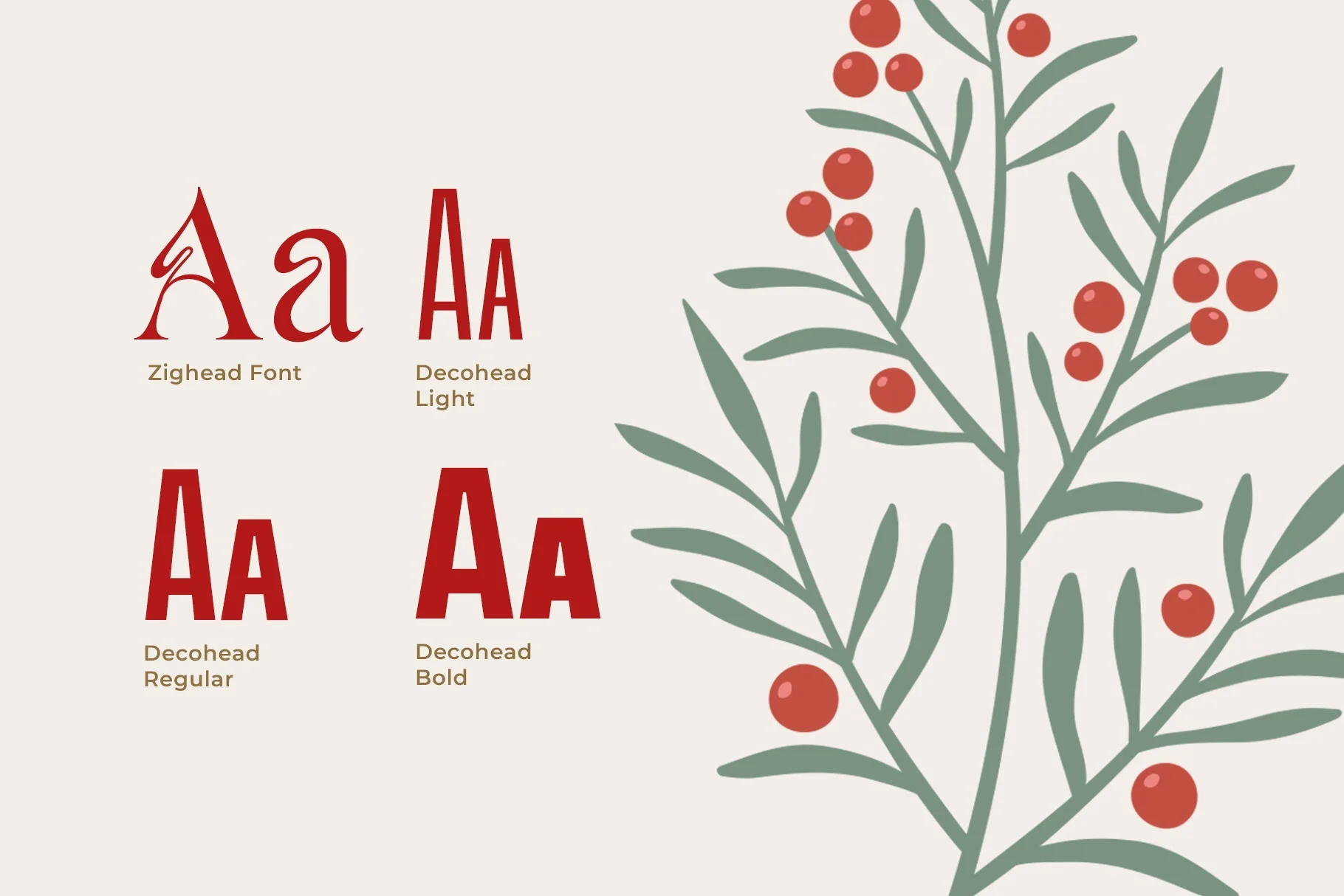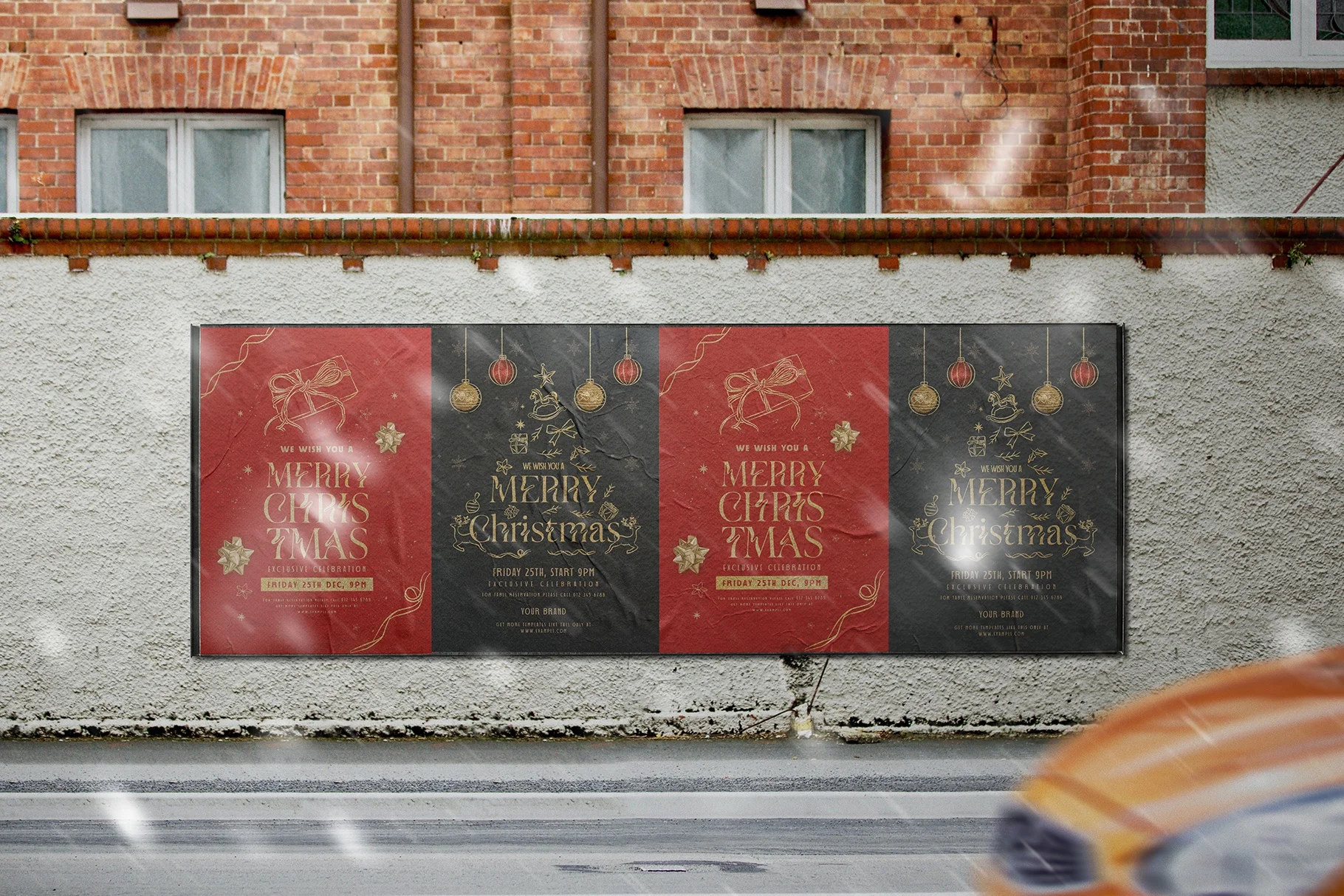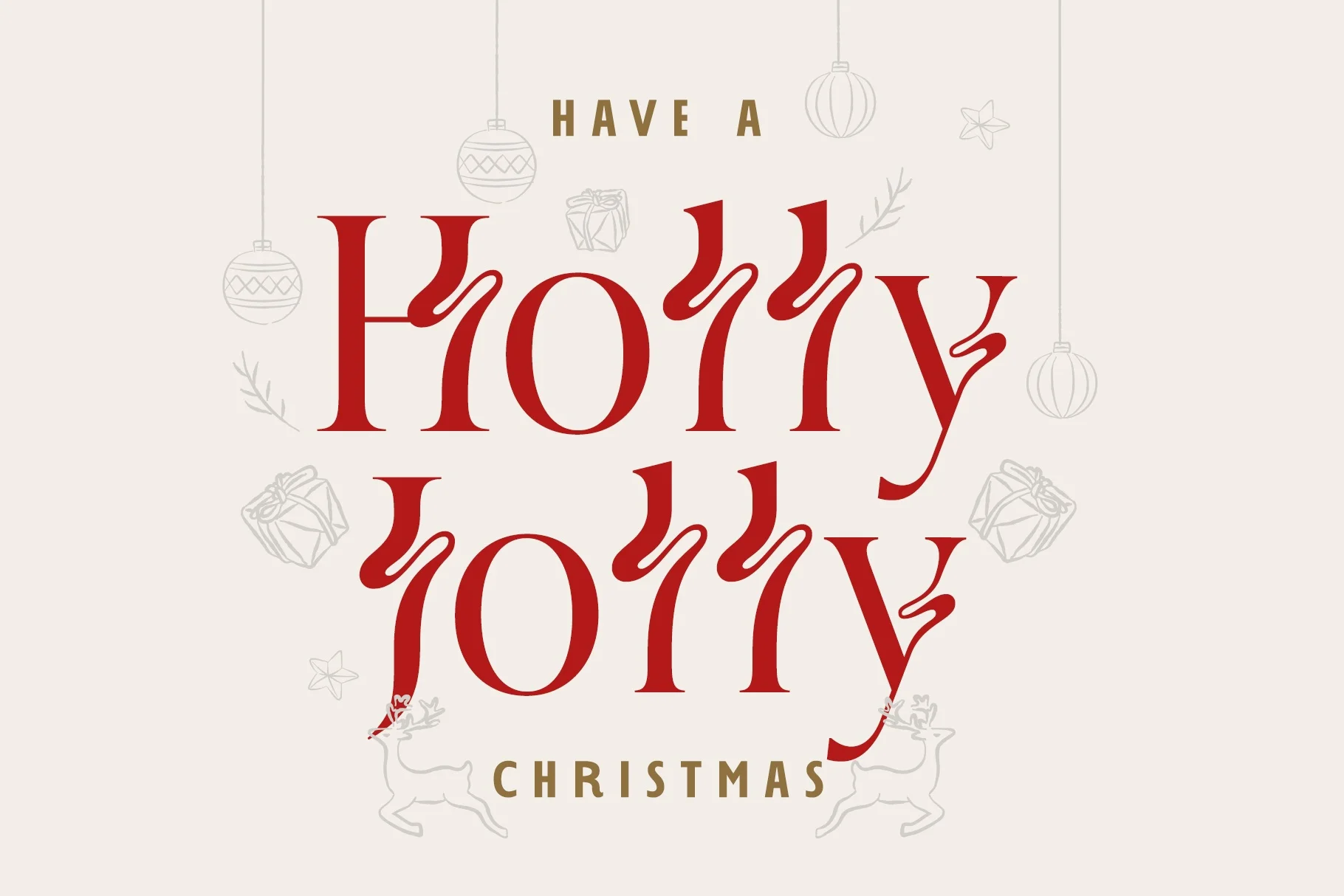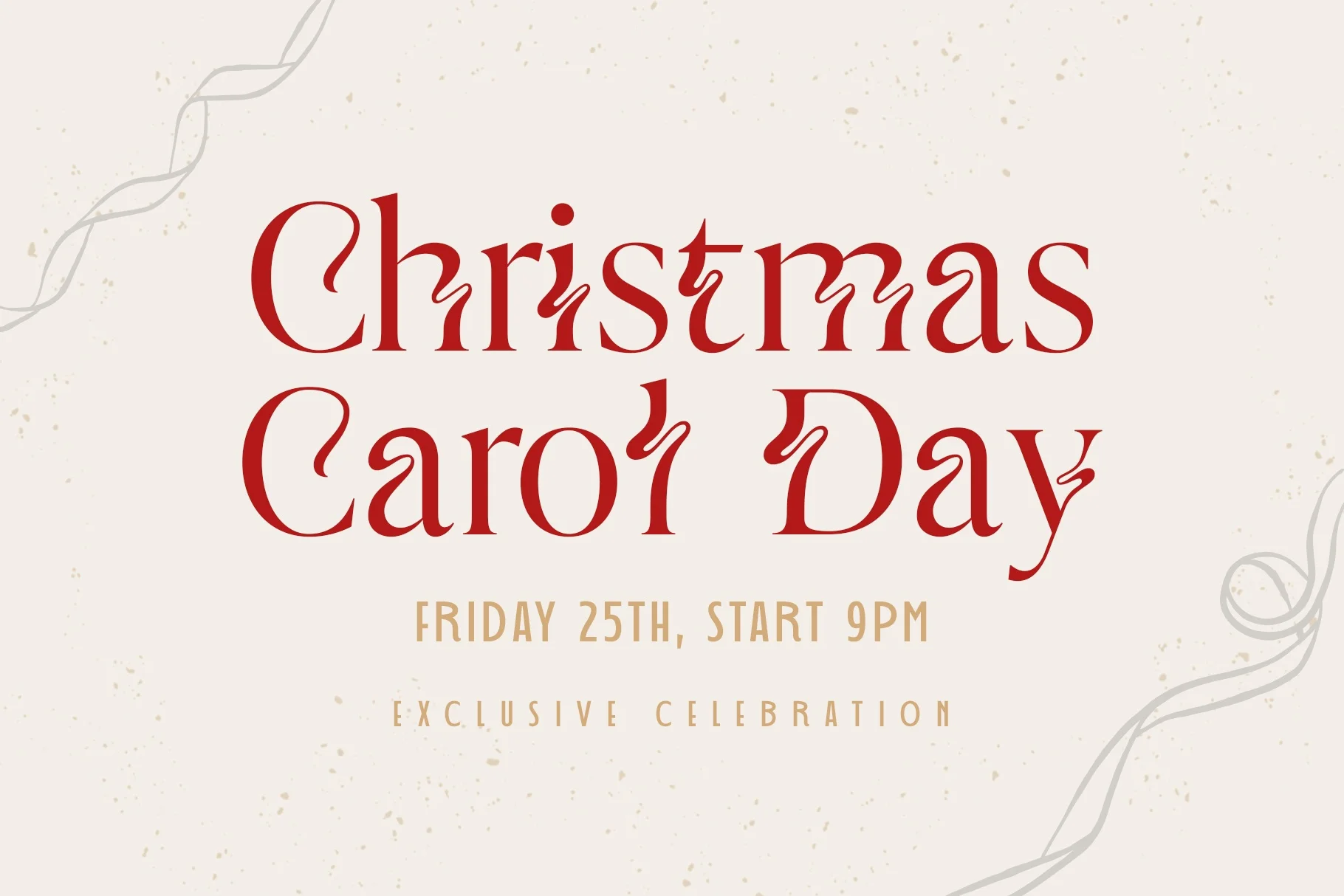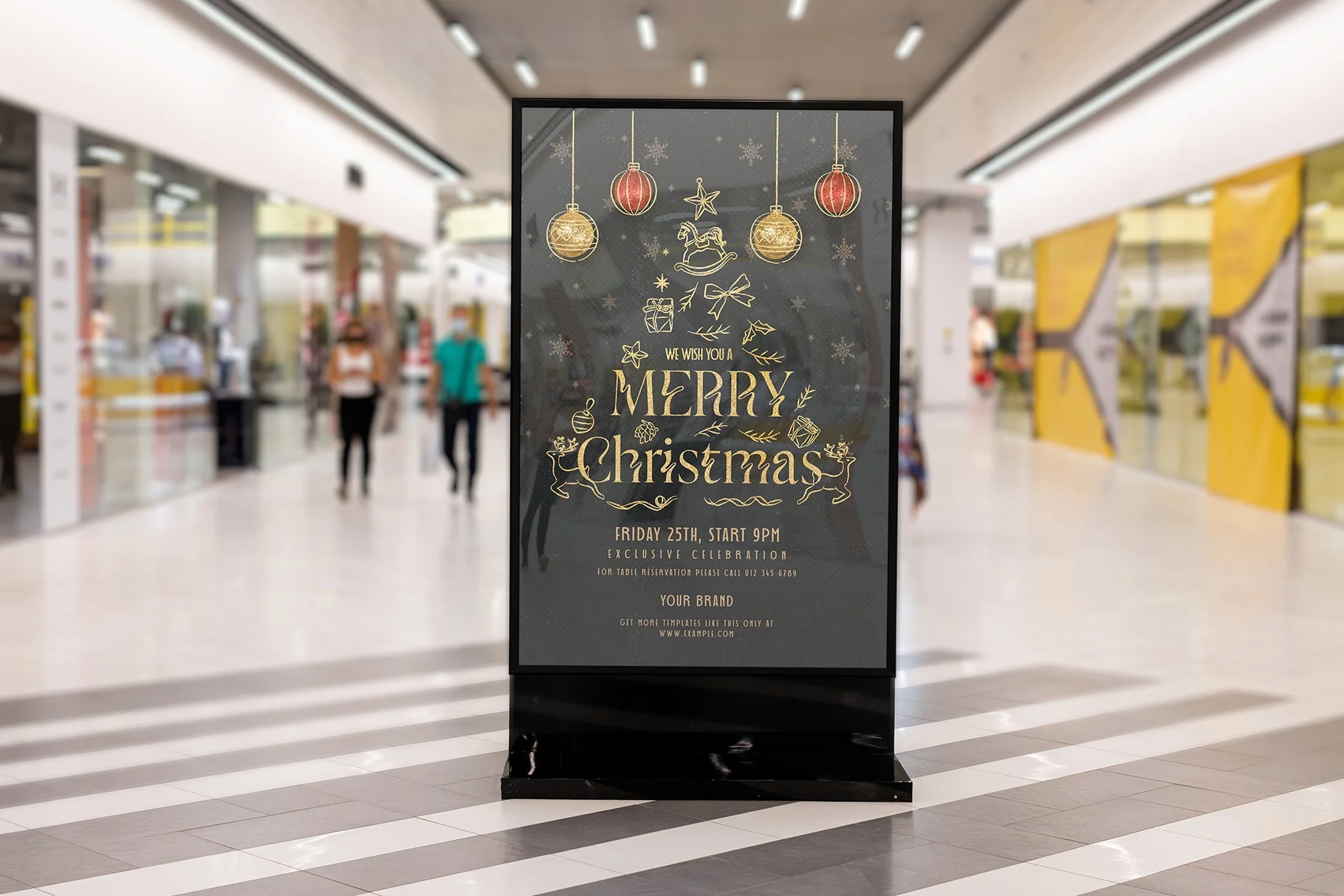
Merry Christmas Font
This joyful font is perfect for Christmas celebration invitations, festive holiday greetings, merry Christmas banners, joyful seasonal campaigns, happy holiday messaging, Christmas party decorations, cheerful Christmas cards, festive digital content, celebratory Christmas signage, and uplifting seasonal communications.
Merry Christmas Font is exciting because it radiates pure Christmas joy and infectious holiday happiness through its exuberantly crafted letterforms that capture the unbridled excitement and celebratory spirit that make Christmas the most joyful time of the year. The font features buoyant, energetic characters with uplifting curves and spirited details that mirror the way "Merry Christmas" greetings spread happiness from person to person, incorporating joyful flourishes and celebratory elements that make every word feel like a burst of Christmas cheer. Each letter showcases the effervescent quality and irrepressible optimism that defines true Christmas merriment, with dancing proportions and gleeful accents that create typography as contagious and uplifting as the laughter of children on Christmas morning. The design perfectly embodies the essence of merriment - that special blend of joy, celebration, and pure happiness that transforms ordinary moments into magical Christmas memories.
The Merry Christmas Font family includes celebratory style variations: Regular, Bold, Light, Joyful, and Festive versions. The collection features special merry elements including celebration swirls, joy-inspired flourishes, happy star accents, and cheerful ornamental touches. Additional components include merry borders, joyful frames, celebration decorations, and uplifting ornamental designs that enhance the font's merry Christmas appeal and create cohesive joyful holiday themes.
Celebration specialists and joy-focused brands will find Merry Christmas Font to be an essential resource for creating infectiously happy holiday communications that spread Christmas merriment and lift spirits wherever they appear. This joyfully crafted font transforms standard Christmas messaging into celebration-worthy expressions that capture the pure happiness and unbridled joy that make "Merry Christmas" one of the most powerful mood-lifting phrases in the English language.
The typeface includes comprehensive character support with celebratory styling that maintains excellent readability while conveying the infectious joy and pure merriment of Christmas celebrations. The font's uplifting design ensures delightful results across both intimate family applications and large-scale joyful holiday campaigns.
Perfect for celebration planners, joyful brands, merry Christmas events, and happiness-focused holiday marketing, this font delivers exuberant visual impact that communicates pure joy, infectious happiness, and the irrepressible merriment that makes Christmas the most wonderfully joyful and uplifting celebration in the world.